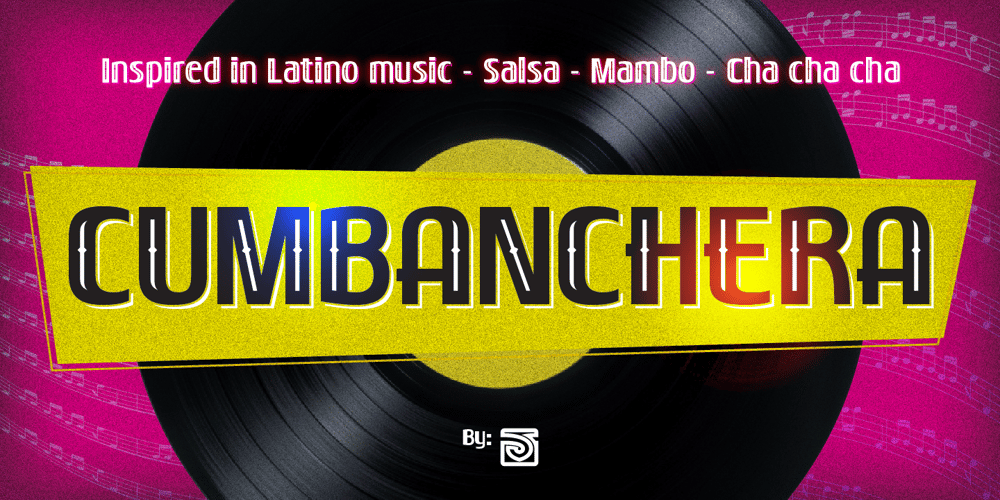
Cumbanchera Font Family was designed by John Vargas Beltrán and published by JVB Fonts. Cumbanchera contains 4 styles and family package options. CUMBANCHERA, inspired by the old albums cover art of Latino music. Cumbanchera reminds of the iconic, classic, and recognized musical theme «El Cumbanchero» composed by Rafael Hernández Marín «El Jibarito». CUMBANCHERA can be used mainly in titles, display and short texts. Supports East Europe languages. Includes standard and discretionary ligatures, alternative style of upper and lowercase, fractions, numerators and denominators, and other OpenType features.